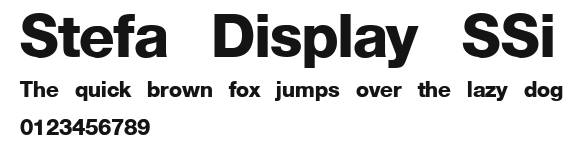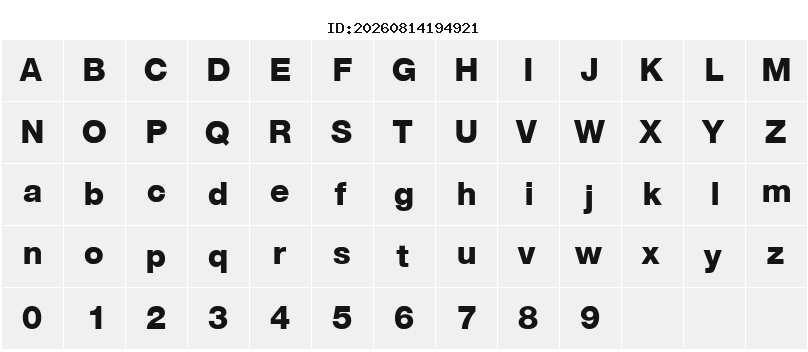
About Stefa Display SSi.ttf
Stefa Display SSi.ttf is a modern, elegant sans-serif font designed for ultimate readability and visual harmony. Perfect for branding, headlines, web design, and print materials.